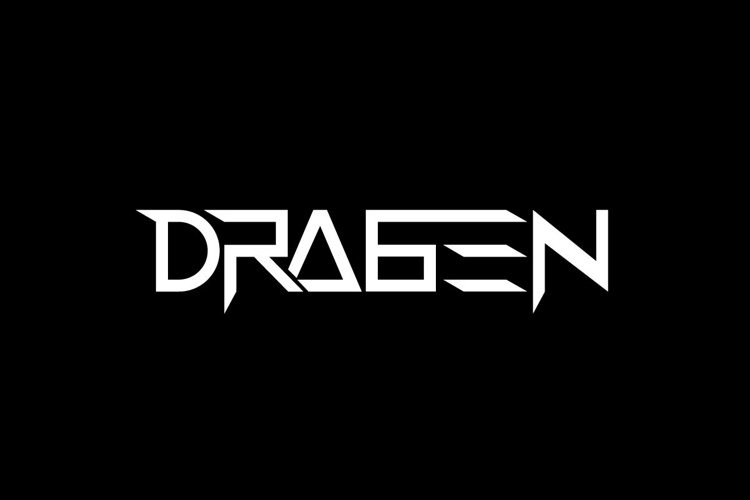
Dragen Font
Dragen Font is a futuristic display font family originally designed by NihStudio. It will be suitable for many business and industries including sports, technology, startup, gadget, games, movies etc